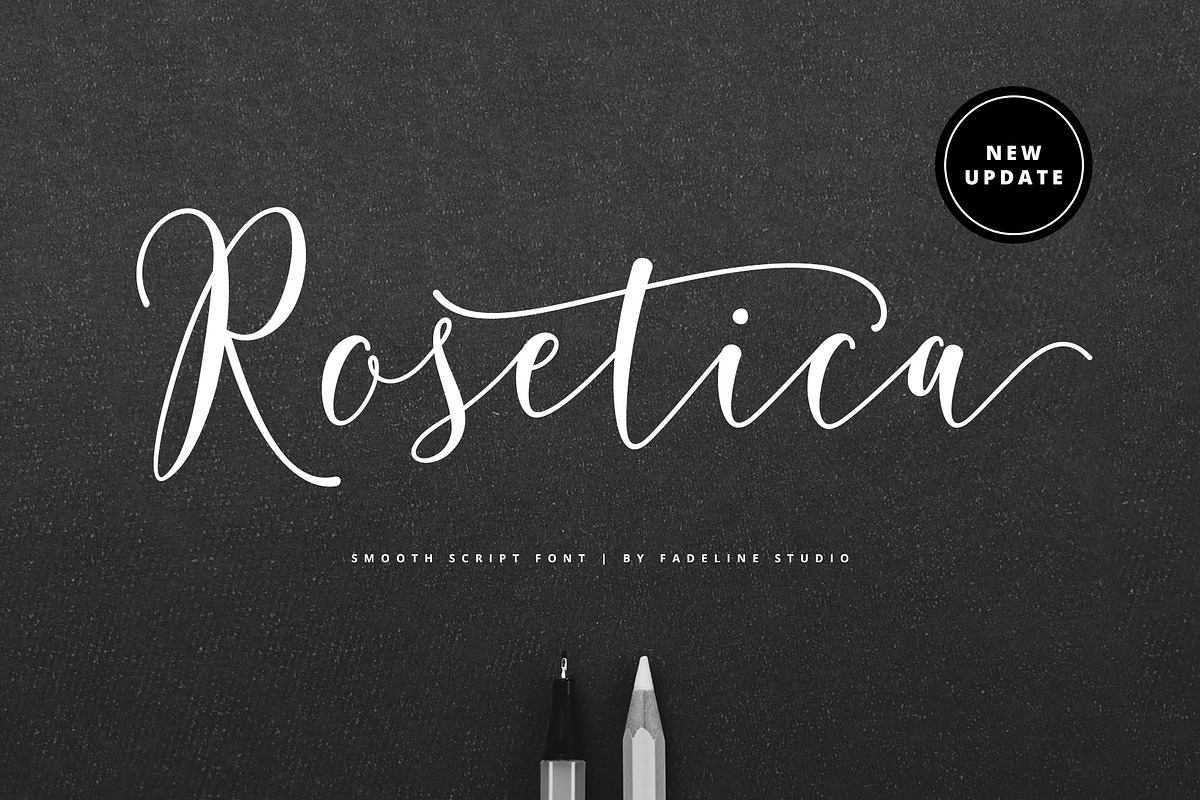
Update! Rosetica Smooth Script Free Download
Rosetica Smooth Script Font Free Download
Please note, to use this font for commercial purposes, you must purchase the full version. Rosetica is a smooth and elegant script font that combines fluid letterforms with graceful curves, giving your designs a polished and timeless feel. Perfect for logos, invitations, branding, and any creative project that requires a sophisticated touch, Rosetica adds elegance and charm. Whether you're designing for a luxury brand, a wedding invitation, or a high-end event, this font will bring a refined, handwritten touch to your work. Test it out and enjoy free download access for personal use. Experience the graceful beauty of Rosetica Smooth Script Font Free Download before purchasing the commercial license. Add a smooth, elegant flair to your designs with Rosetica.